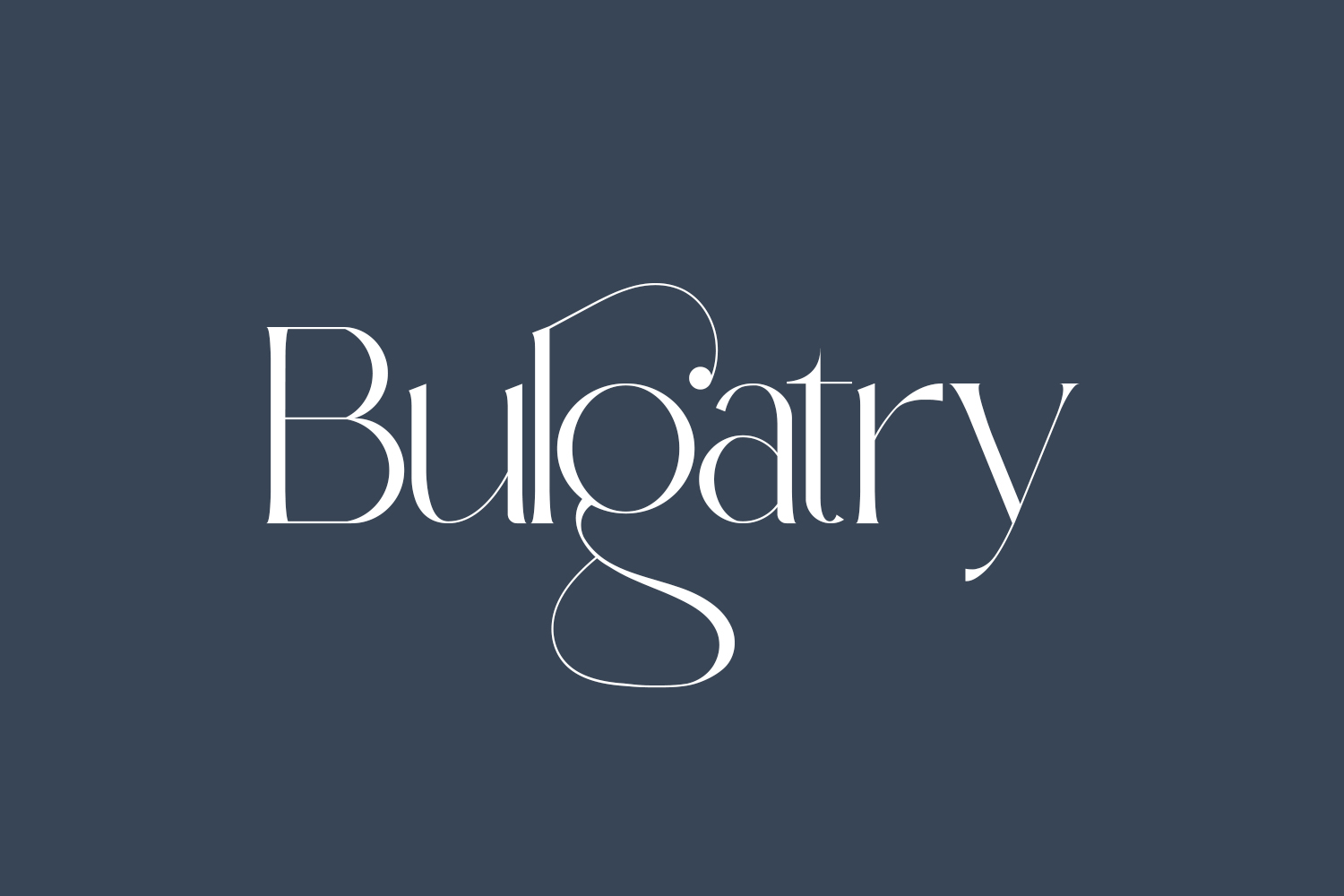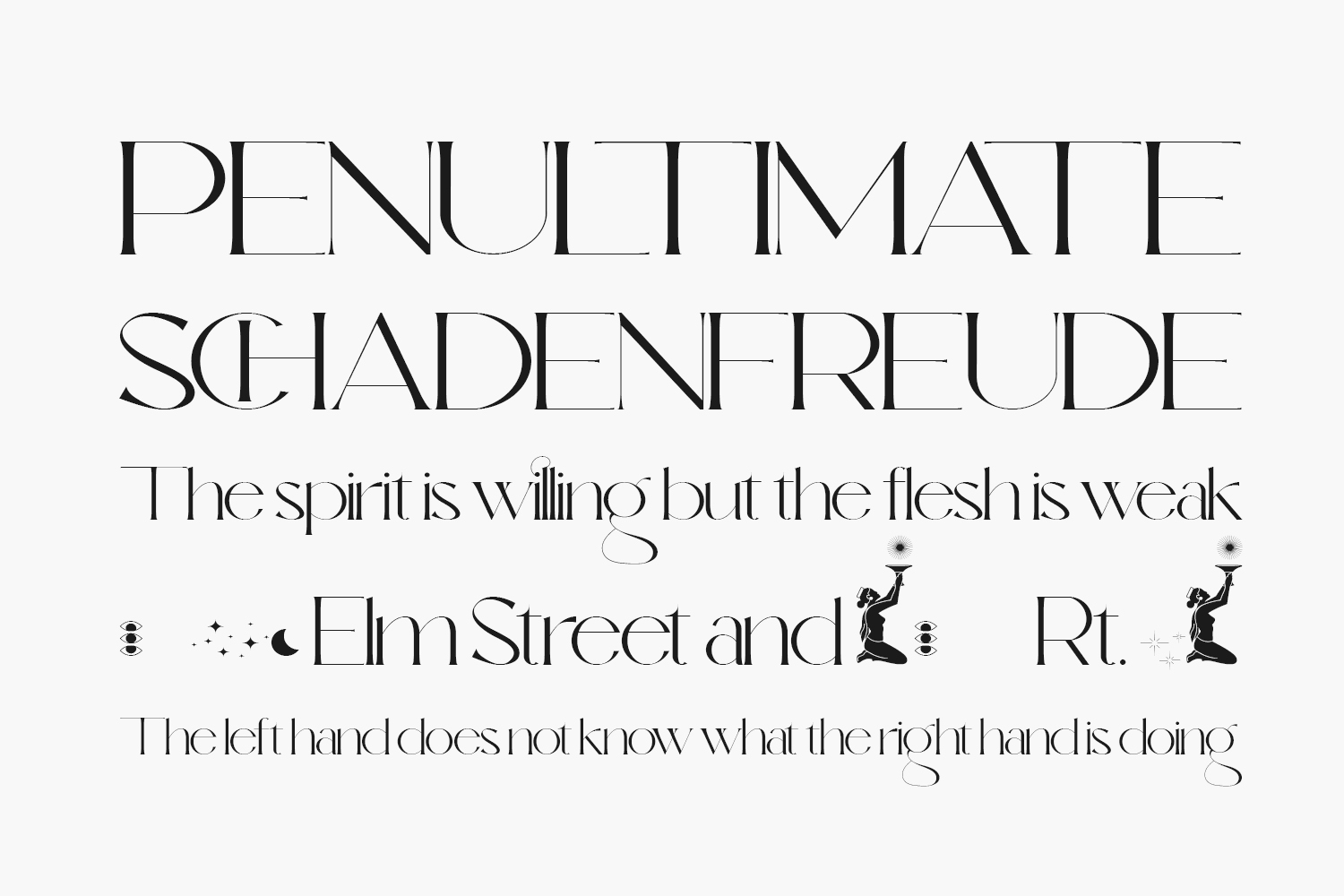
Bulgatry Free Font epitomizes style and sophistication in a serif font. Crafted with a focus on luxury and femininity, it’s an ideal choice for contemporary, chic projects seeking an elegant touch. Download the font for free if you need it for personal use or purchase the full version for commercial use.